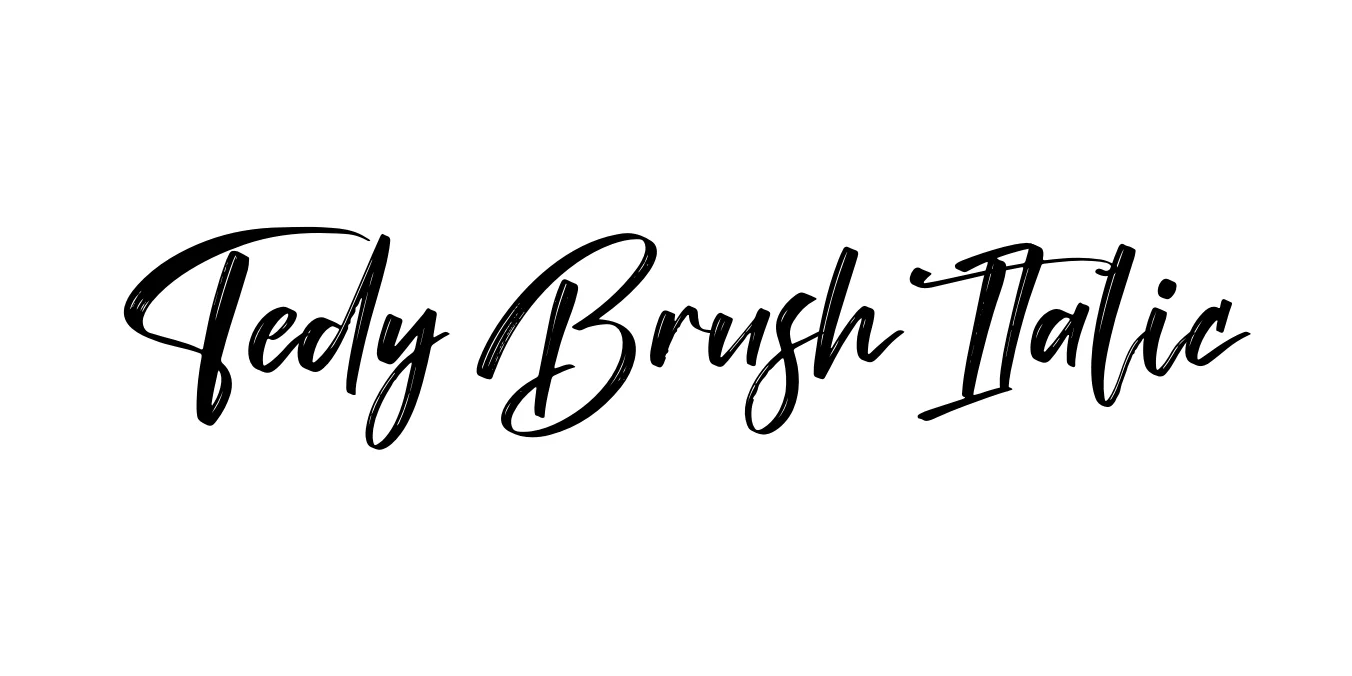
Tedy Brush Italic
Tedy Brush Italic emerged during the peak of the artisanal digital movement, designed specifically to bridge the gap between traditional sign-painting techniques and modern desktop publishing requirements. Developed by the Alit Design studio, this font captures the raw, spontaneous energy of a flat-tip brush moved quickly across a textured surface. Unlike standard script fonts that often feel repetitive, Tedy Brush Italic utilizes a variety of ligatures and subtle glyph variations to simulate the authentic 'ink bleed' and dry-stroke effects associated with hand-drawn calligraphy.
Technically, the typeface features a pronounced slant that enhances its forward momentum, making it exceptionally effective for sports branding and action-oriented advertising. The letterforms are characterized by a medium-to-high x-height, which preserves legibility even when the texture is dense. The terminals are frayed, suggesting a medium-bristle brush, while the counters remain relatively open to prevent visual 'clogging' at smaller point sizes. Its visual weight is slightly bottom-heavy, providing a grounded feel despite the expressive, soaring ascenders and descenders.
Tedy Brush Italic Best Uses
Ideal for logos needing a personal, hand-crafted touch.
Excellent for high-impact quote graphics and Instagram stories.
Perfect for t-shirt prints and urban streetwear labels.